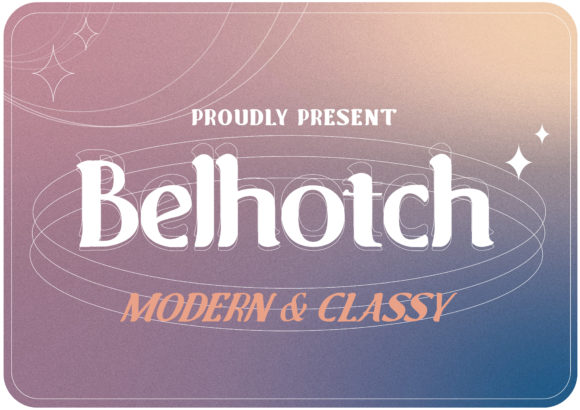
Introducing Belhotch Font: The Epitome of Elegance for Your Wedding Video
In the realm of visual storytelling, your wedding video holds a special place, capturing the essence of your love story and preserving it for generations to come. As you embark on this journey of creating a cinematic masterpiece, allow Belhotch Font to be your creative partner, transforming your video into an unforgettable spectacle of elegance and sophistication.
Belhotch Font, a modern and classy display font, is meticulously crafted to elevate your wedding video beyond the ordinary. Its captivating letterforms, adorned with graceful curves and delicate strokes, evoke a sense of timeless beauty that perfectly complements the momentous occasion of your wedding.
With Belhotch Font, you'll discover a world of creative possibilities. Whether you're crafting heartfelt titles, emotive quotes, or meaningful messages, this font will effortlessly elevate your video's narrative, leaving a lasting impression on your audience.
Imagine your wedding video opening with a breathtaking title sequence, featuring Belhotch Font's enchanting characters dancing across the screen, setting the tone for a love story that's both timeless and captivating. As the video progresses, Belhotch Font seamlessly adapts to various elements, from vows and toasts to candid moments and heartfelt speeches, adding an air of elegance and sophistication to every frame.
Belhotch Font's versatility extends beyond wedding videos. It's a perfect choice for invitations, thank-you cards, and other wedding stationery, ensuring a cohesive design theme throughout your special day. Its timeless appeal also makes it ideal for logos, business cards, and branding materials, adding a touch of class and refinement to your professional endeavors.
By incorporating Belhotch Font into your wedding video, you're not just adding text; you're infusing it with a soul, a story, and an emotional depth that transcends words. It's a font that speaks to the heart, capturing the essence of love, joy, and commitment in each and every letterform.